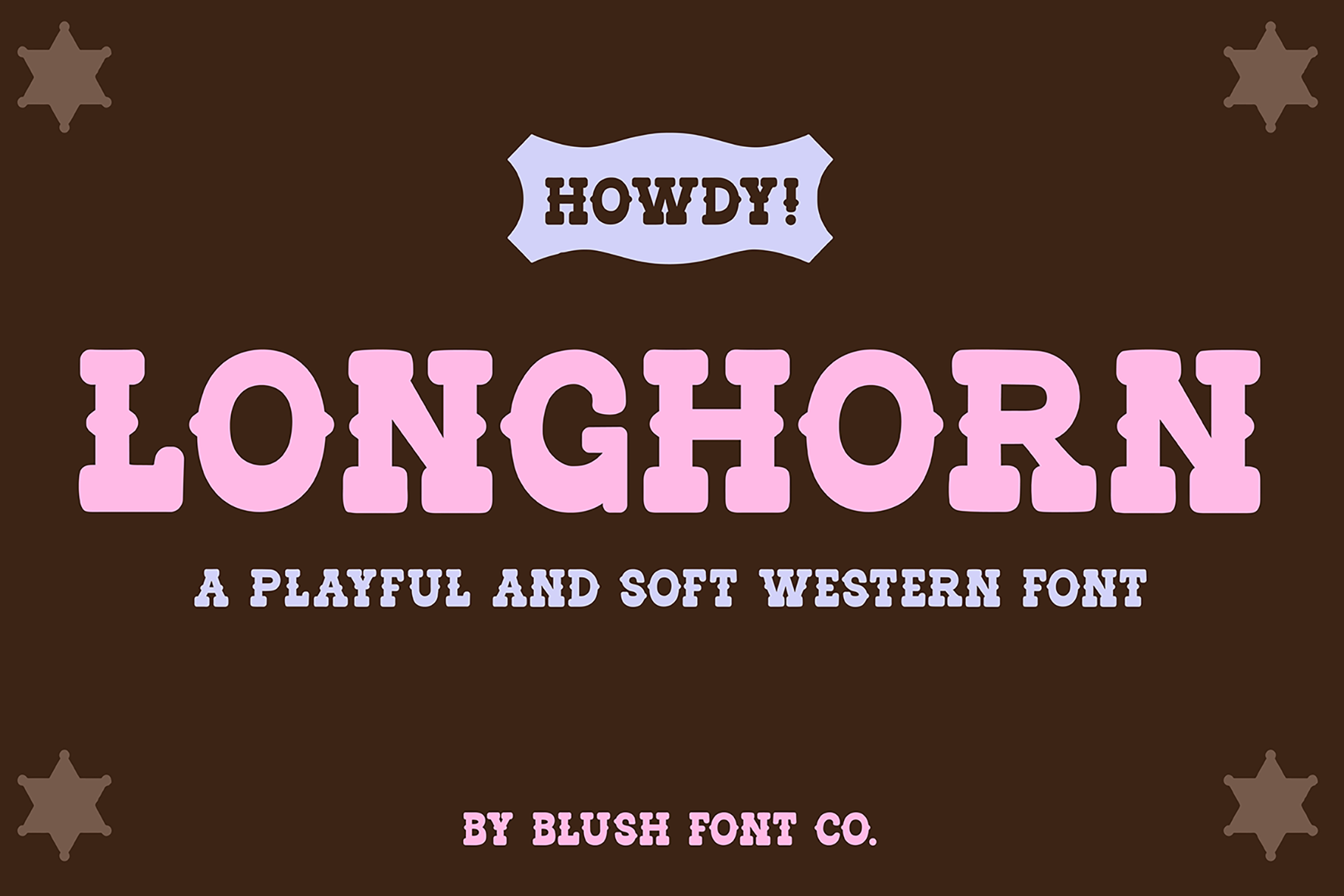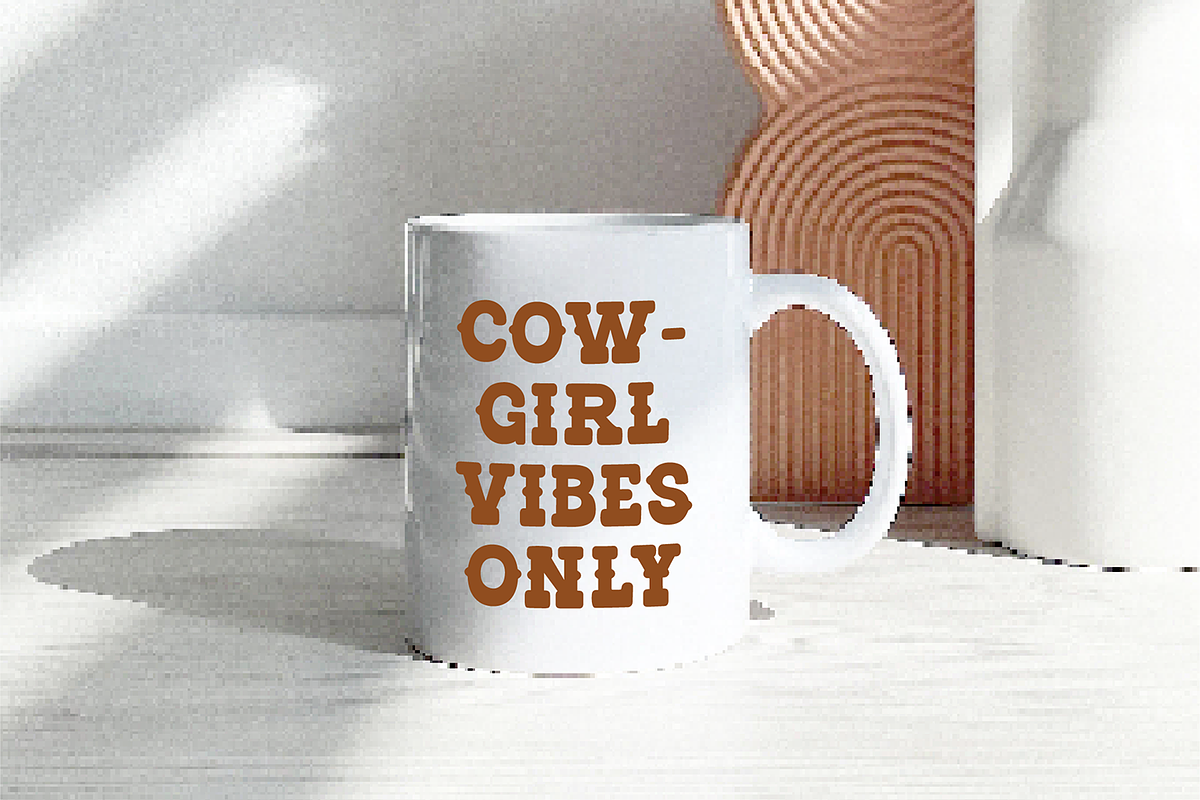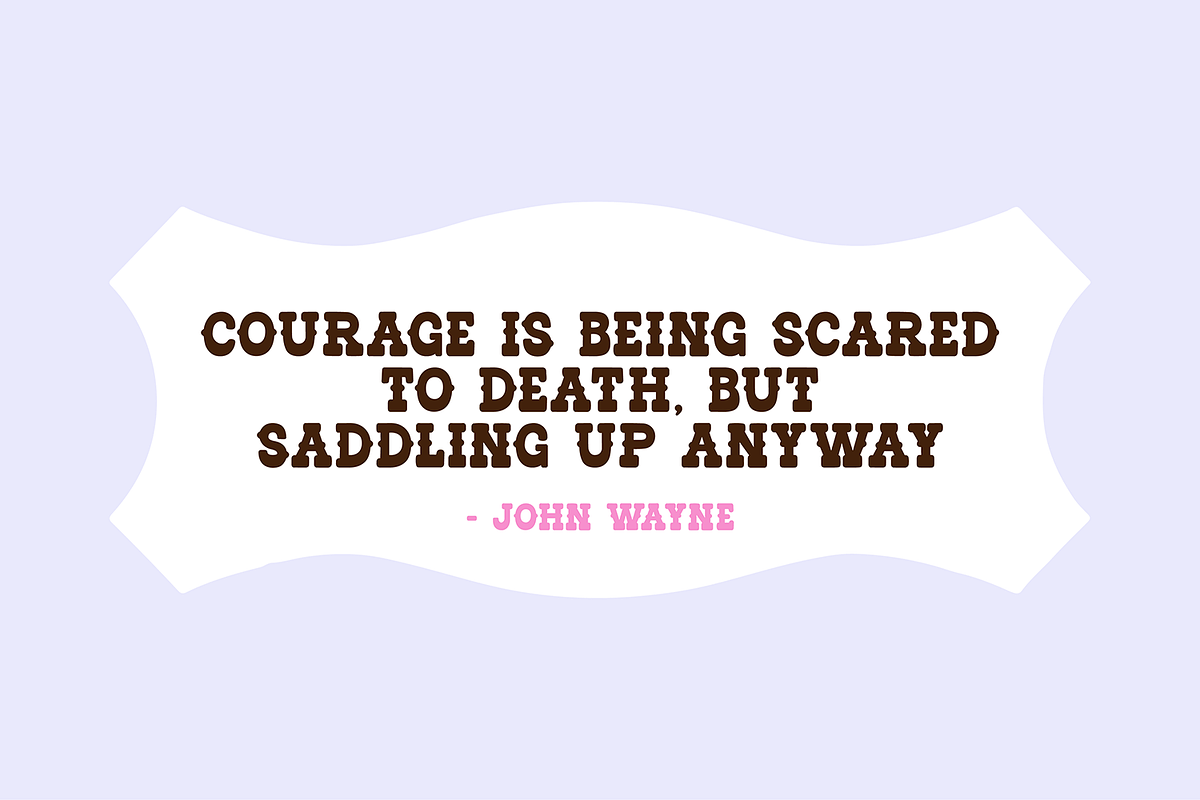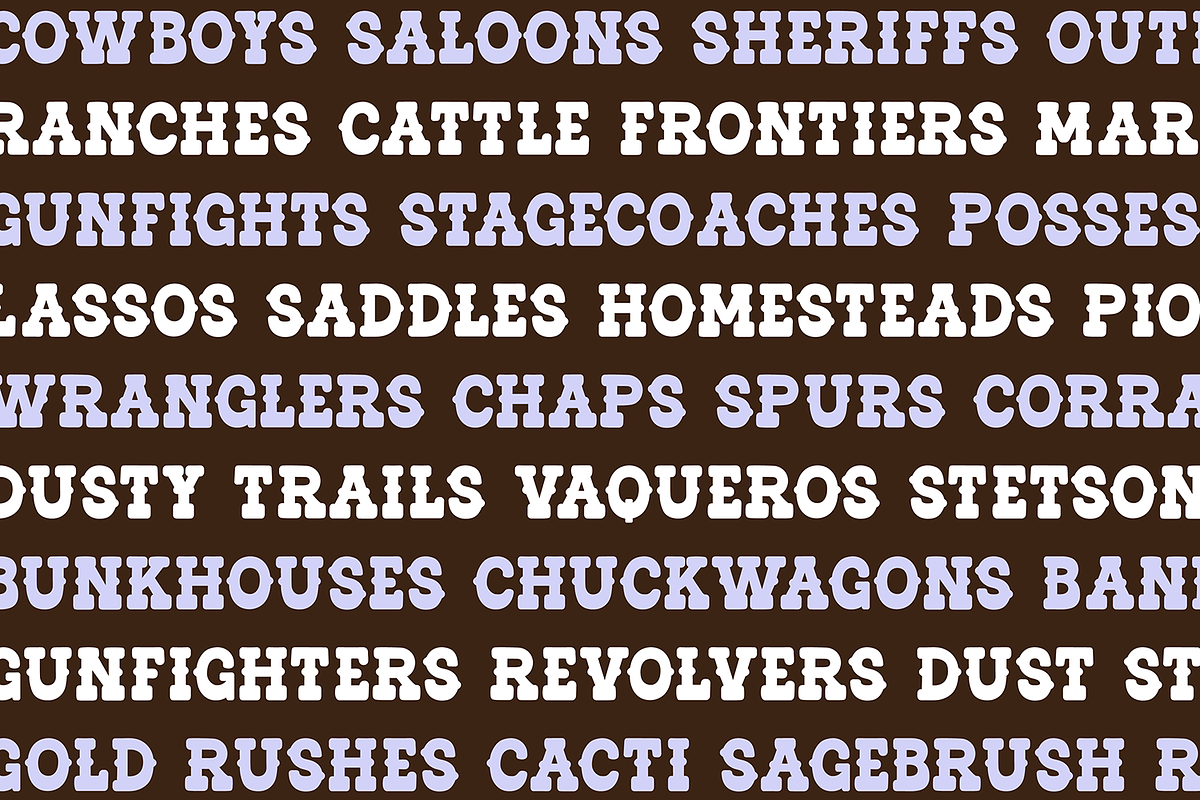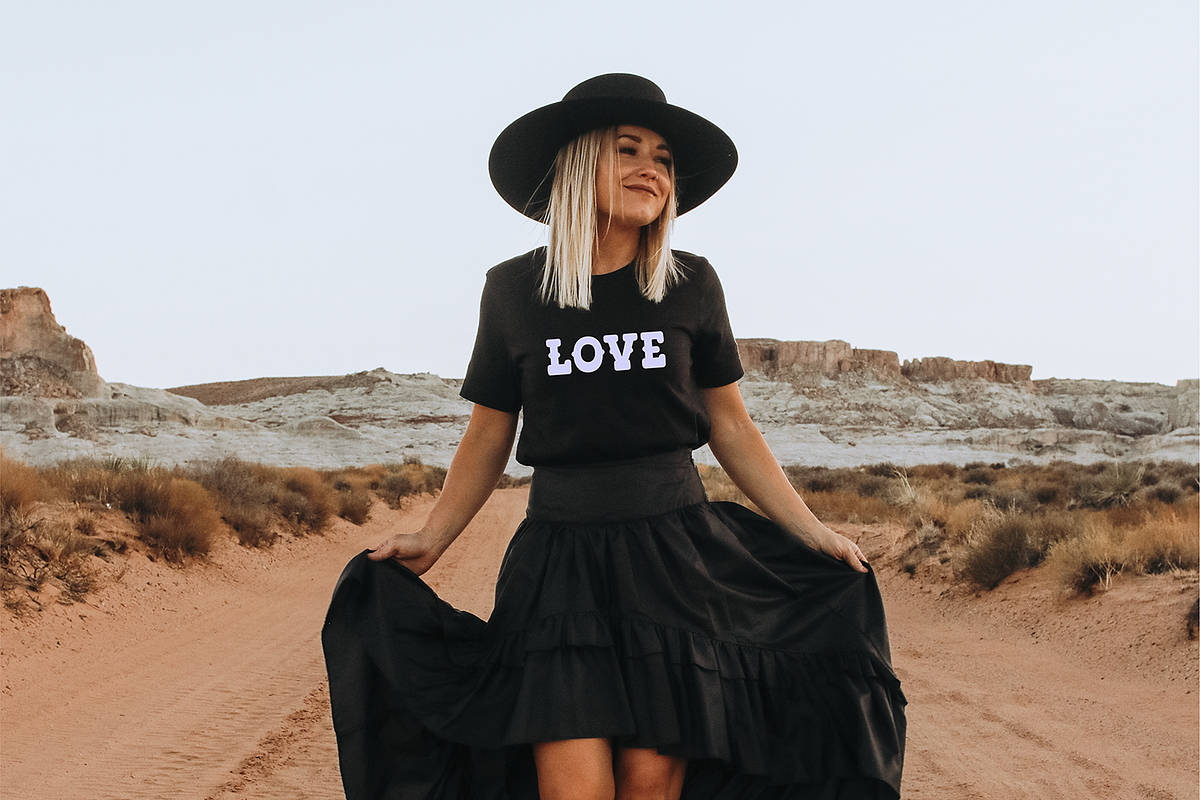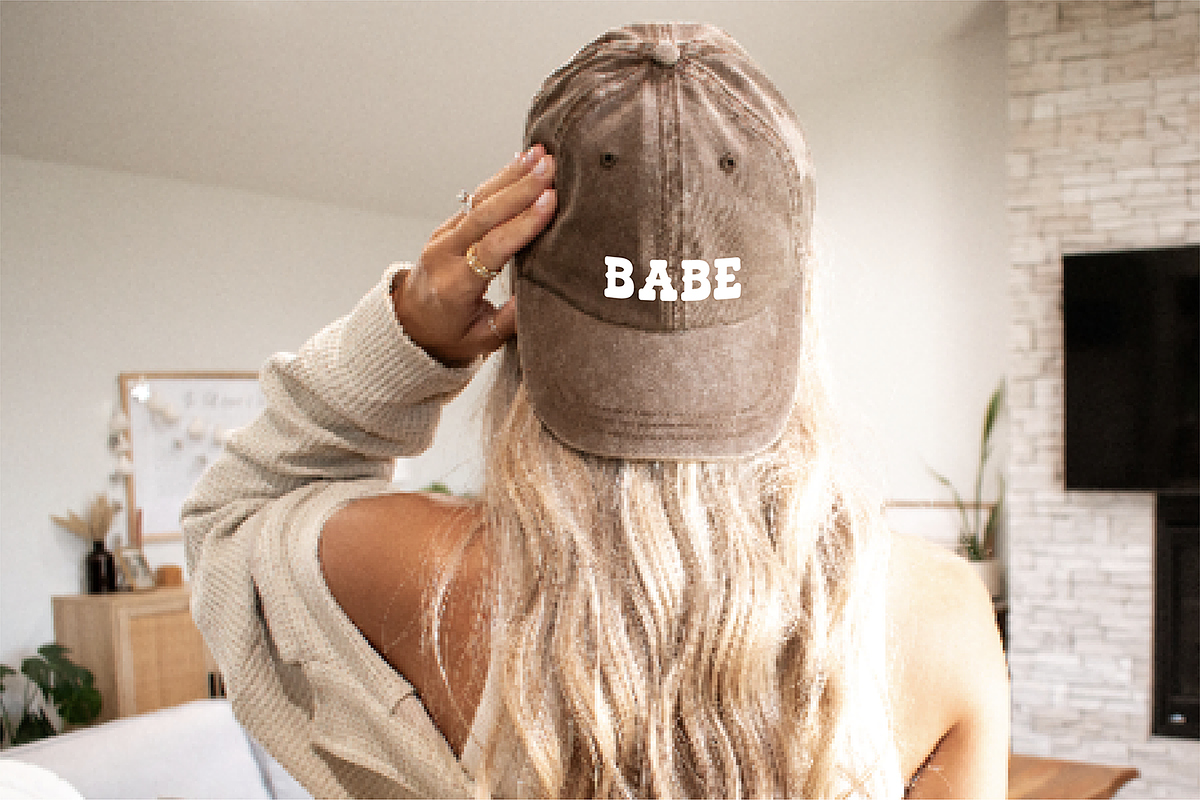
LONGHORN Bold Soft Western Font
"Longhorn" Bold and soft western font.
Add a bold western feel to your next project with this soft vintage-inspired font. This western display font combines chunky letterforms, rounded edges, and a playful retro cowboy aesthetic that works perfectly for Cricut crafts, boutique branding, apparel design, stickers, logos, packaging, social media graphics, invitations, western baby showers, country concert merch, rodeo themes, farmhouse decor, and trendy small business branding. The soft curves and bold shape give this font a modern western look while still keeping that classic vintage cowboy personality.
Perfect for: • Western branding • Retro cowgirl designs • Country boutique logos • Vintage apparel graphics • Rodeo and ranch themes • Cute western nursery decor • Social media templates • Cricut and Silhouette projects • Handmade business branding